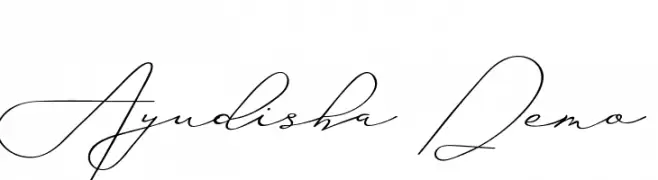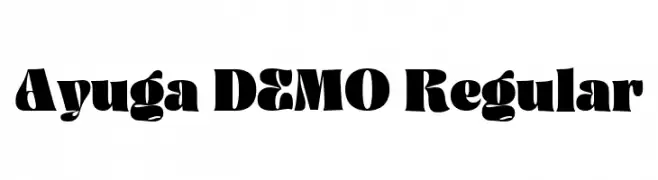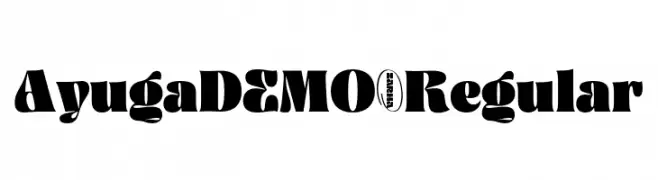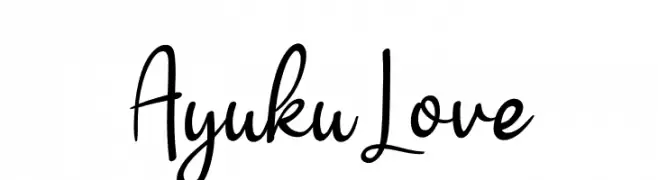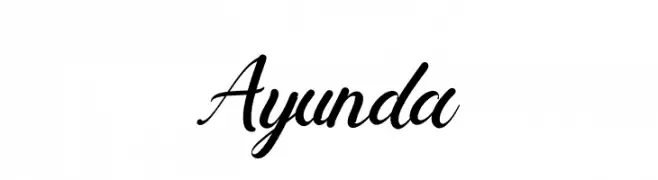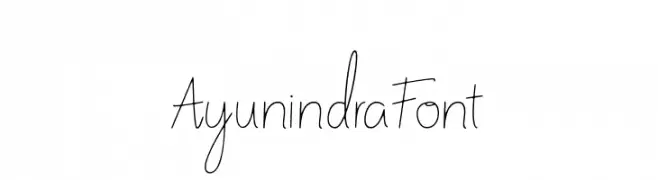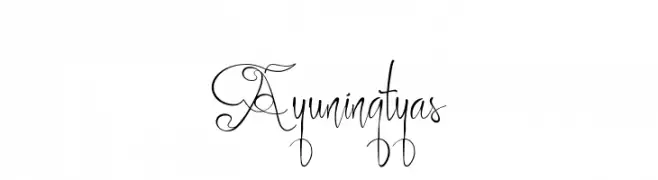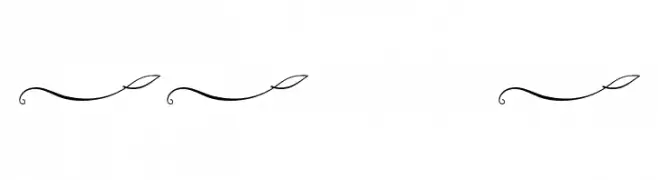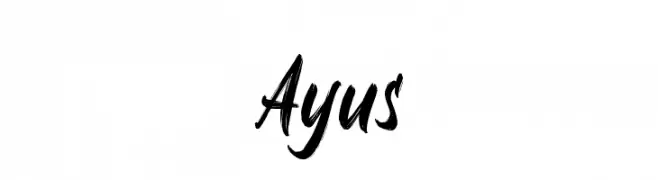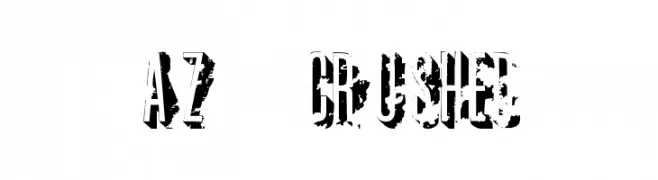
( Fonts by Muksal Creative - Personal-use only. For commercial use please contact owner. ) An elegant, flowing script font with delicate, intricate letterforms. Download 67 Downloads@WebFont
( Fonts by Ruangkerja - Rudy Muhardika - Personal-use only. For commercial use please contact owner. ) A sophisticated script font with flowing, interconnected strokes and elegant curves. Download 43 Downloads@WebFont
( Fonts by Faqih Fawaji - Personal-use only. For commercial use please contact owner. ) A bold, geometric font with a three-dimensional shadow effect. Download 34 Downloads@WebFont
( Fonts by Zarma Type Foundry - Azzam Ridhamalik - Personal-use only. For commercial use please contact owner. ) A bold, high-contrast font with unique, eye-catching characters. Download 250 Downloads@WebFont
( Fonts by Zarma Type Foundry - Azzam Ridhamalik - Personal-use only. For commercial use please contact owner. ) A bold, playful font with dynamic strokes and a whimsical style. Download 389 Downloads@WebFont
( Fonts by Dika ) A playful, casual handwritten font with fluid, connected letterforms. Download 164 Downloads@WebFont
( Fonts by Letterena Studios - letterena.com - Personal-use only. For commercial use please contact owner. ) A refined script font with flowing, interconnected cursive letters. Download 45 Downloads@WebFont
( Fonts by Letterena Studios - letterena.com - Personal-use only. For commercial use please contact owner. ) A flowing, cursive script font with elegant, connected letters and moderate stroke thickness. Download 30 Downloads@WebFont
( Fonts by I Putu Gede Krisna - Personal-use only. For commercial use please contact owner. ) A delicate, handwritten font with thin, flowing lines and a whimsical touch. Download 39 Downloads@WebFont
( Fonts by Rudi Winarko - Personal-use only. For commercial use please contact owner. ) An elegant, decorative font with intricate swirls and flourishes. Download 32 Downloads@WebFont
( Fonts by Rudi Winarko - Personal-use only. For commercial use please contact owner. ) Elegant swashes with smooth curves for decorative use. Download 32 Downloads@WebFont
( Fonts by StringLabs - stringlabscreative.com - Personal-use only. For commercial use please contact owner. ) A bold, brush-style font with expressive, hand-painted strokes. Download 90 Downloads@WebFont
( Fonts by StringLabs - stringlabscreative.com - Personal-use only. For commercial use please contact owner. ) A bold, brushstroke font with an energetic and artistic style. Download 41 Downloads@WebFont
( Fonts by Ahmad Khaidir - Personal-use only. For commercial use please contact owner. ) A dynamic, handwritten font with a casual and flowing style. Download 94 Downloads@WebFont
( Gaelleing ) A modern, geometric outline font with uniform line thickness and high legibility. Download 465 Downloads@WebFont
( Fonts by Vunira Design - Personal-use only. For commercial use please contact owner. ) A bold, expressive script font with flowing, interconnected letterforms. Download 29 Downloads@WebFont
( Fonts by Vunira Design - Personal-use only. For commercial use please contact owner. ) A bold, cursive script font with elegant, flowing characters. Download 24 Downloads@WebFont
( Fonts by Hasana Font - Personal-use only. For commercial use please contact owner. ) A bold, playful font with rounded, cartoonish characters. Download 99 Downloads@WebFont
( Fonts by Vunira Design - Personal-use only. For commercial use please contact owner. ) A bold, cursive script font with decorative flourishes and smooth curves. Download 53 Downloads@WebFont
( Fonts by Vunira Design - Personal-use only. For commercial use please contact owner. ) A bold, playful script font with a handwritten feel and high contrast. Download 48 Downloads@WebFont
( Fonts by Vunira Design - Personal-use only. For commercial use please contact owner. ) A bold, cursive script font with flowing, connected letters. Download 30 Downloads@WebFont
( Fonts by Vunira Design - Personal-use only. For commercial use please contact owner. ) A bold, playful script font with a modern, decorative style. Download 56 Downloads@WebFont
( Fonts by Katie Grove ) A bold, playful handwritten font with rounded, irregular characters. Download 190 Downloads@WebFont
( Fonts by Dan P. Lyons - Personal-use only. For commercial use please contact owner. ) A bold, modern sans-serif font with clean lines and strong presence. Download 359 Downloads@WebFont
( Fonts by Deniz86 - Rahmat Hidayat - Personal-use only. For commercial use please contact owner. ) An elegant and flowing script font with graceful curves and sophisticated flair. Download 21 Downloads@WebFont
( Fonts by Hector Gatti & Omnibus-Type (original fonts) / Cristiano Sobral (main changes and remastering) - Personal-use only. For commercial use please contact owner. ) A bold, modern sans-serif font with thick, uniform strokes. Download 1205 Downloads@WebFont